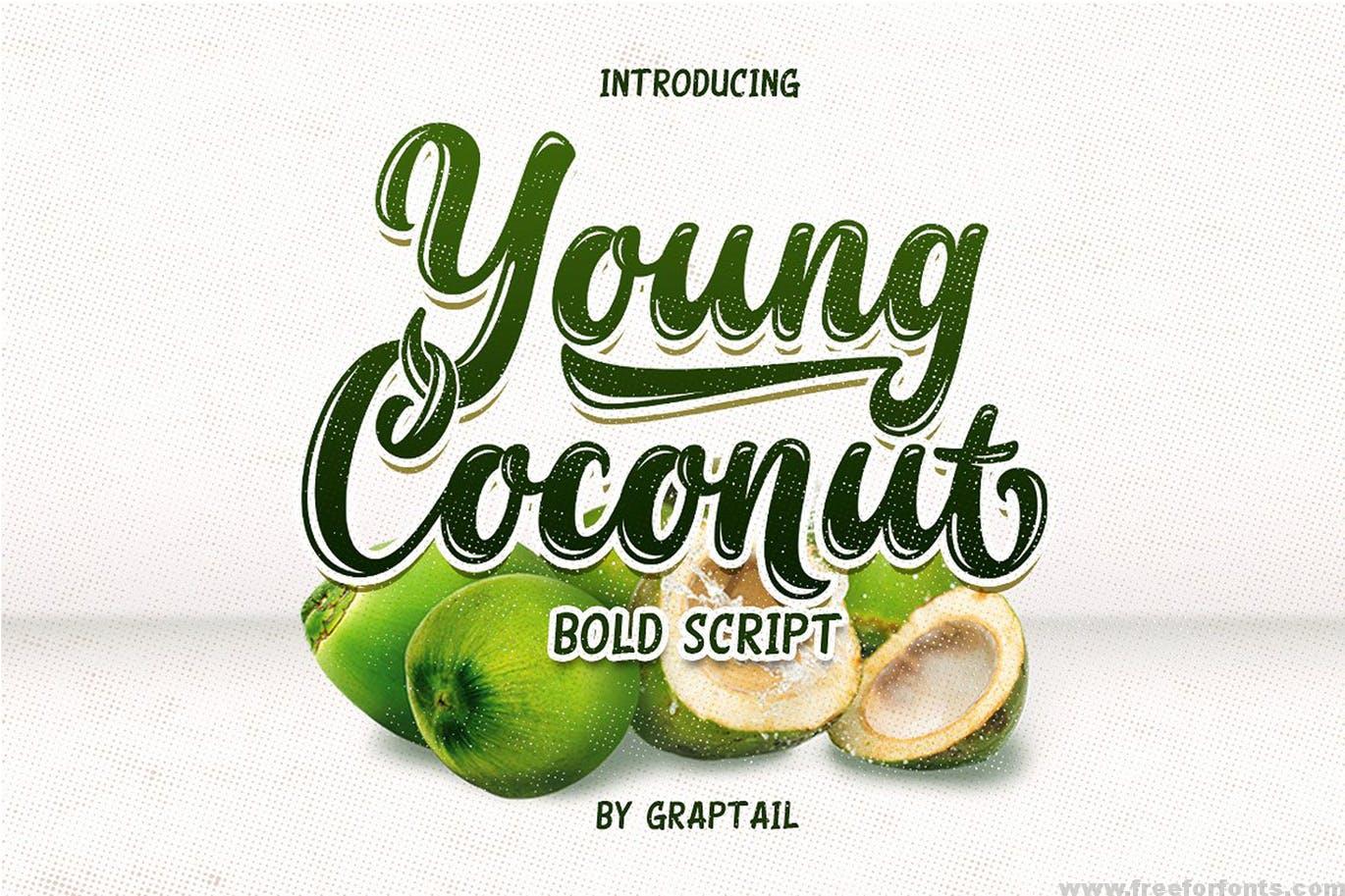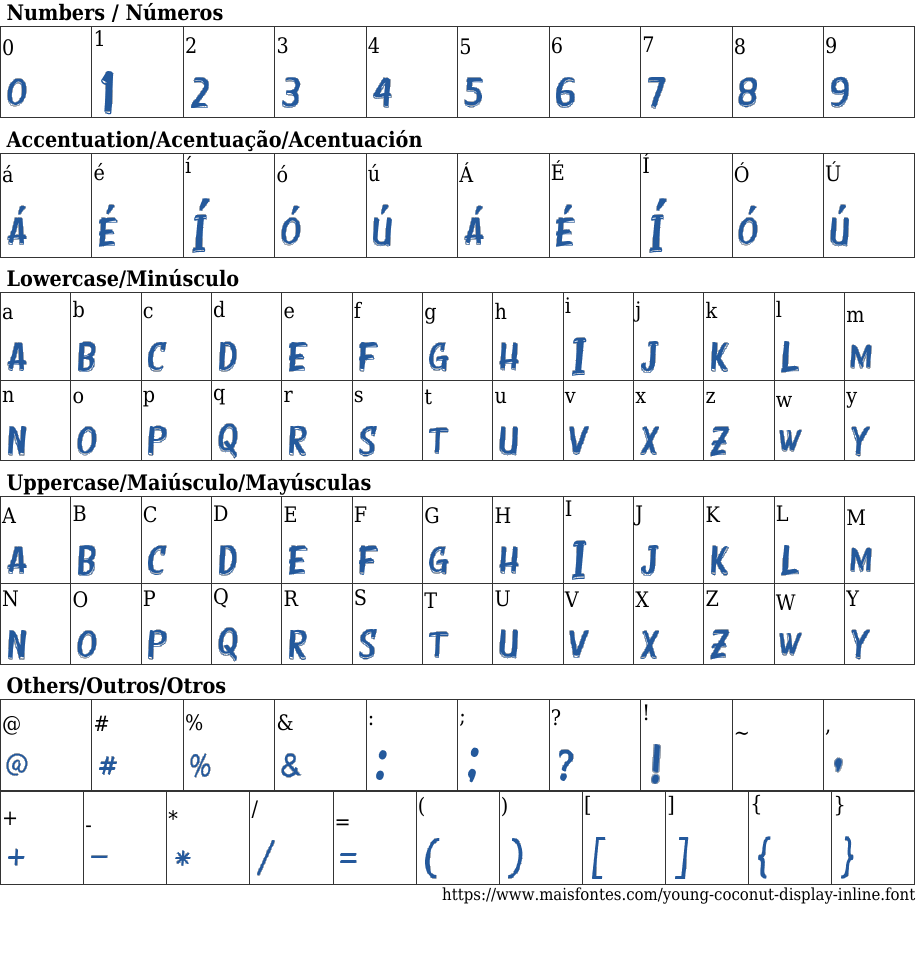
Young Coconut Font - It has a casual, sporty vibe,. Young coconut is a playful, handwritten font that looks like it was drawn with a bold marker.
It has a casual, sporty vibe,. Young coconut is a playful, handwritten font that looks like it was drawn with a bold marker.
Young coconut is a playful, handwritten font that looks like it was drawn with a bold marker. It has a casual, sporty vibe,.
Young Coconut Is A Playful, Handwritten Font That Looks Like It Was Drawn With A Bold Marker.
It has a casual, sporty vibe,.